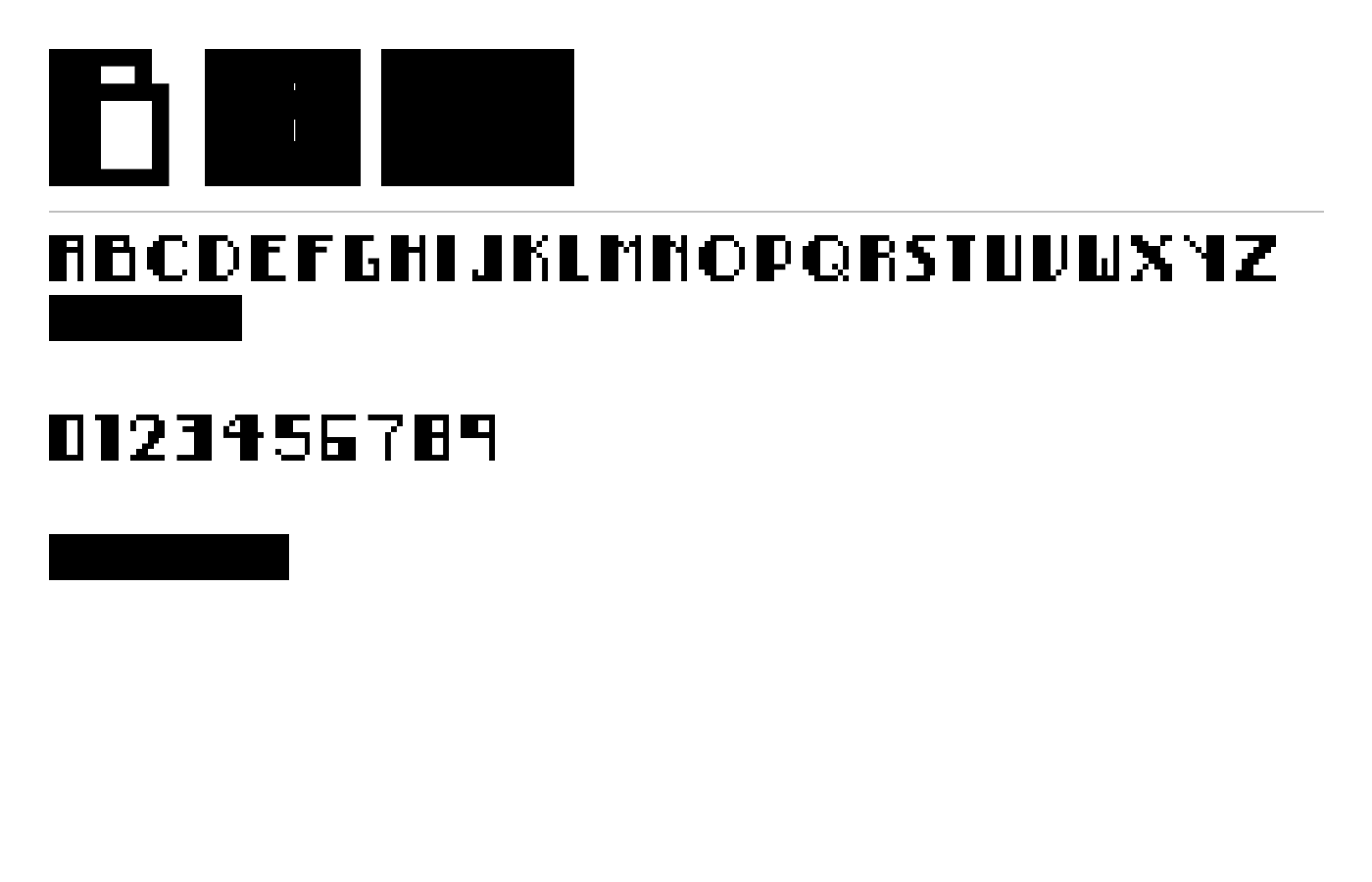
BitNoire is a bold, pixelated sans serif font that captures a retro 8-bit digital aesthetic with blocky, geometric letterforms and uniform stroke weight. Its all-caps design and monospaced feel make it perfect for creating vintage video game or tech-inspired branding, titles, and displays where a strong, nostalgic digital vibe is desired. This font works especially well in logos, posters, and websites aiming for a playful yet edgy pixel art style.
BitNoire Font
About BitNoire Font